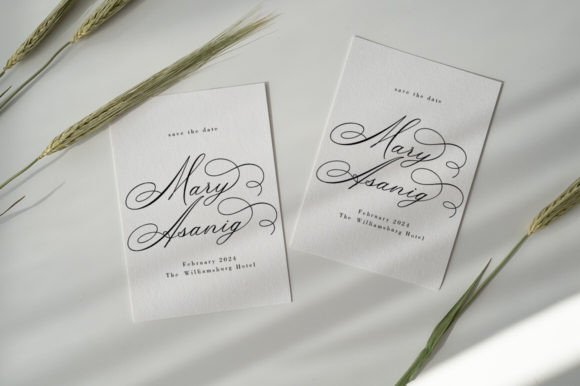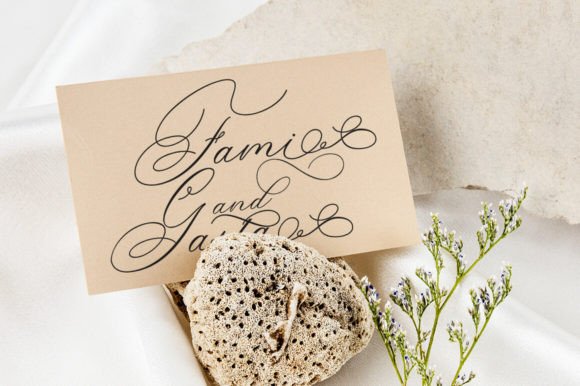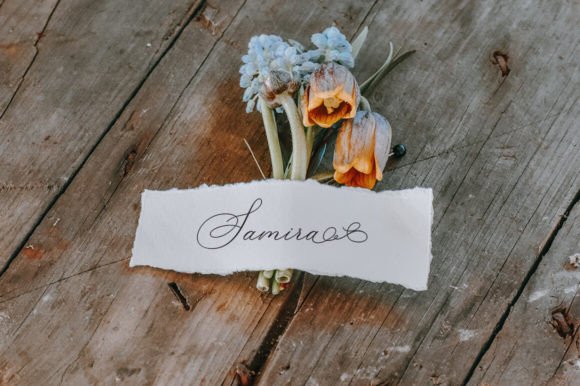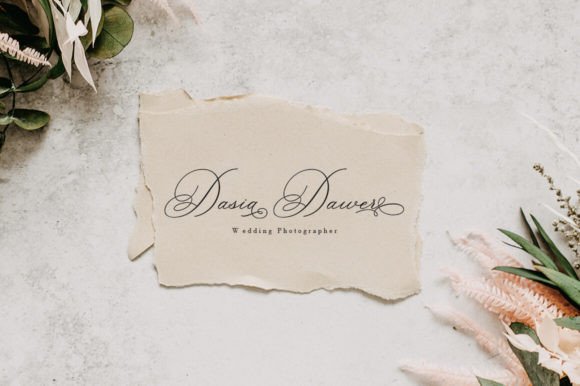
Discover the Beauty of Asima Font: A Sweet Calligraphy Font for Creative Projects
Are you a designer or crafter looking for a font that can add a touch of elegance and sweetness to your creative projects? Look no further than Asima Font, a beautiful calligraphy font that is perfect for a wide range of applications. In this article, we’ll take a closer look at the features and benefits of Asima Font, and explore how it can be used to elevate your designs.
What is Asima Font?
Asima Script is a sweet calligraphy font that is designed to be casual and pretty, with a range of swashes that add a touch of elegance to any design. The font includes a regular style, making it easy to use for a variety of projects. One of the standout features of Asima Font is its PUA (Private Use Area) encoding, which allows users to access all of the amazing glyphs and ligatures with ease.
Key Features of Asima Font
• Casual and Pretty Design: Asima Font has a relaxed, casual feel that makes it perfect for designs that need to feel friendly and approachable.
• Swashes and Glyphs: The font includes a range of swashes and glyphs that can be used to add a touch of elegance and sophistication to any design.
• PUA Encoded: Asima Font is PUA encoded, making it easy to access all of the amazing glyphs and ligatures.
• Versatile: Asima Font can be used for a wide range of projects, from logos and product packaging to wedding invitations and book covers.
Uses for Asima Font
Asima Font is a versatile font that can be used for a wide range of creative projects, including:
• Logos: Asima Font is perfect for creating logos that need to feel elegant and sophisticated.
• Product Packaging: The font can be used to create labels, packaging, and branding materials that need to stand out.
• Wedding Invitations: Asima Font is a popular choice for wedding invitations, thanks to its elegant and romantic feel.
• Branding: The font can be used to create branding materials, such as business cards and letterheads.
• Headlines: Asima Font can be used to create eye-catching headlines for posters, flyers, and other marketing materials.
• Signage: The font can be used to create signs and displays that need to be easy to read and visually appealing.
• Labels: Asima Font can be used to create labels for products, files, and other materials.
• Signatures: The font can be used to create elegant signatures for emails and documents.
• Book Covers: Asima Font can be used to create eye-catching book covers that need to stand out.
• Posters: The font can be used to create posters that need to be visually appealing and easy to read.
• Quotes: Asima Font can be used to create inspirational quotes and sayings that need to feel elegant and sophisticated.
Benefits of Using Asima Font
There are many benefits to using Asima Font for your creative projects, including:
• Elegant and Sophisticated Feel: Asima Font has an elegant and sophisticated feel that can add a touch of class to any design.
• Versatility: The font can be used for a wide range of projects, making it a great addition to any designer’s toolkit.
• Easy to Use: Asima Font is easy to use, even for designers who are new to calligraphy fonts.
• PUA Encoded: The font’s PUA encoding makes it easy to access all of the amazing glyphs and ligatures.
Asima Font is a beautiful calligraphy font that is perfect for designers and crafters who need to add a touch of elegance and sophistication to their creative projects. With its casual and pretty design, range of swashes and glyphs, and PUA encoding, Asima Font is a versatile font that can be used for a wide range of applications. Whether you’re creating logos, product packaging, wedding invitations, or book covers, Asima Font is a great choice.